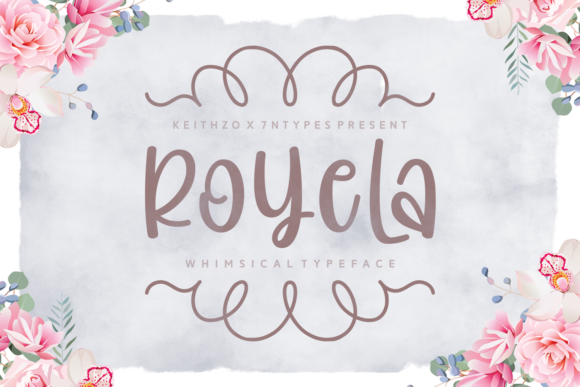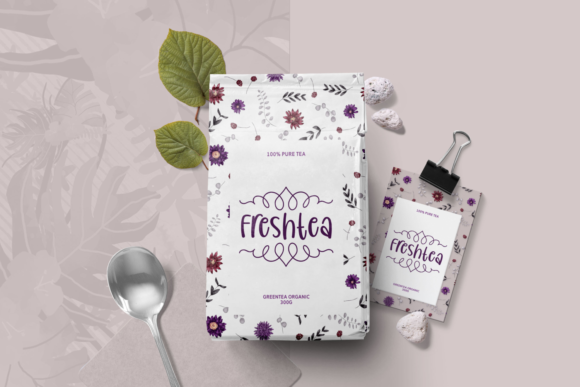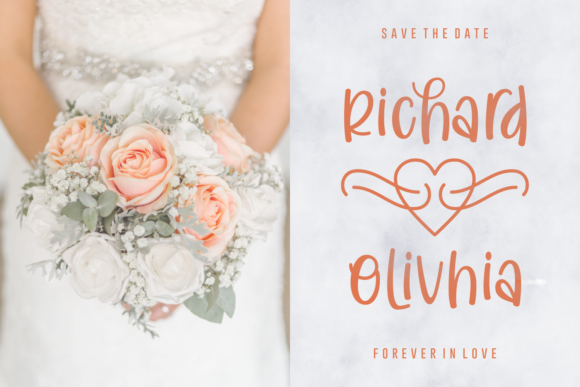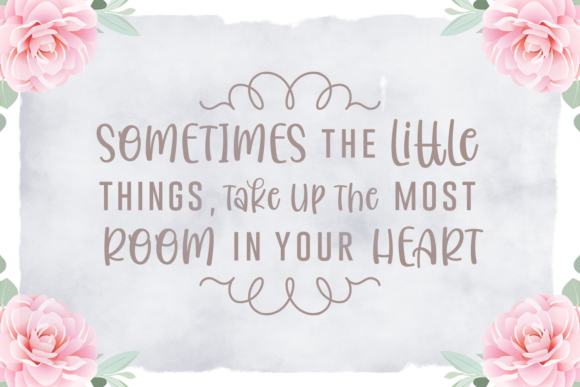
Royela Font
About Royela Font
The Royela is a whimsical script font. It has a fun flow and a perfect readability.
Included are some amazing swashes which will add an elegant touch to your designs.